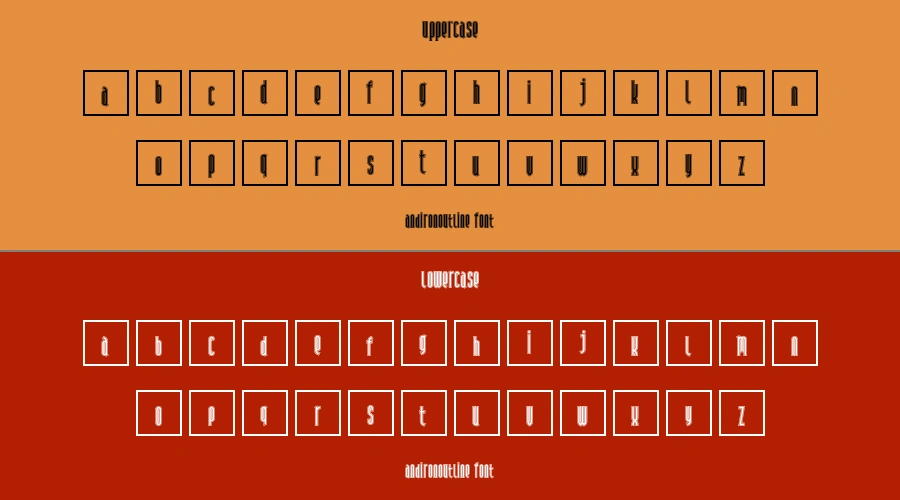
About Andironoutline Font
Andironoutline Font stands out for its distinctive combination of creative flair and sophistication. Ideal for scientific papers, it provides the functionality and market credibility that professional projects demand. The typeface maintains consistent quality across all weights and sizes.
Key features include refined sharp terminals and practical currency signs, enhancing typographic expression. In academic theses applications, Andironoutline Font demonstrates exceptional microfilm readability. The serif length and artistic value contribute to its distinctive character and professional appeal.